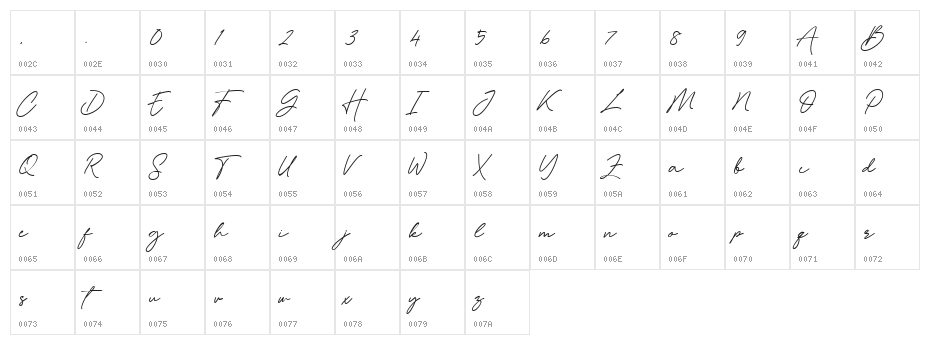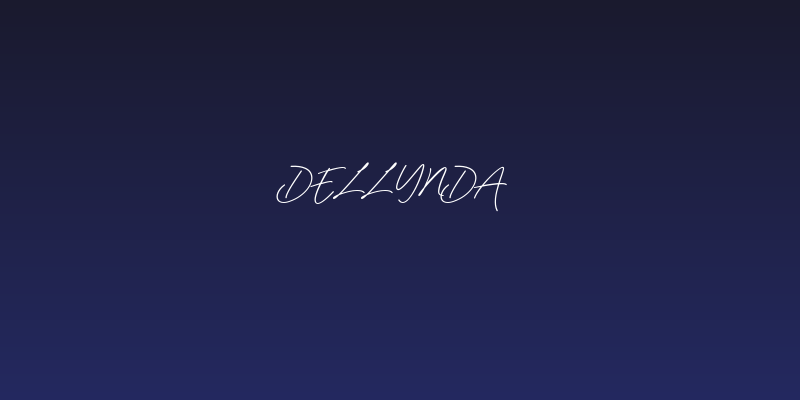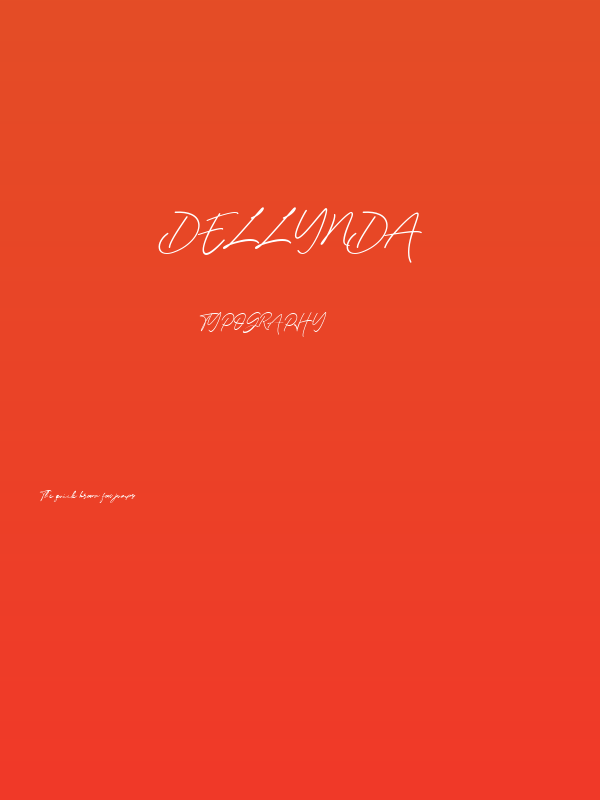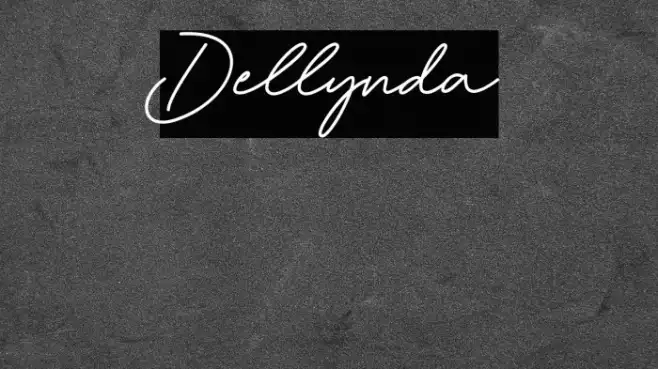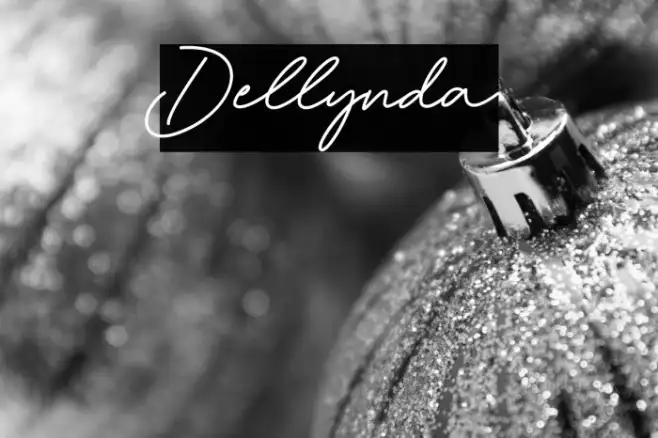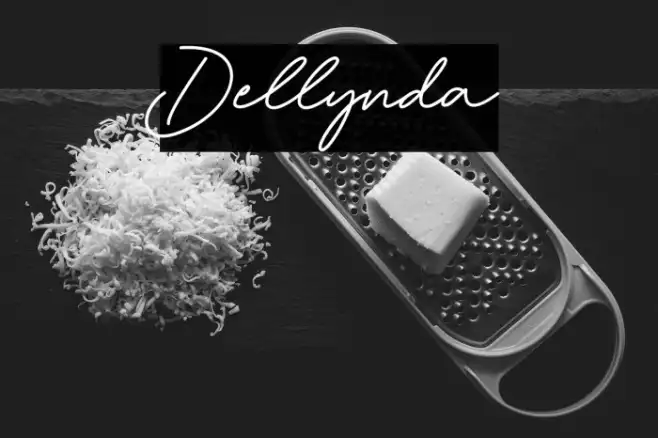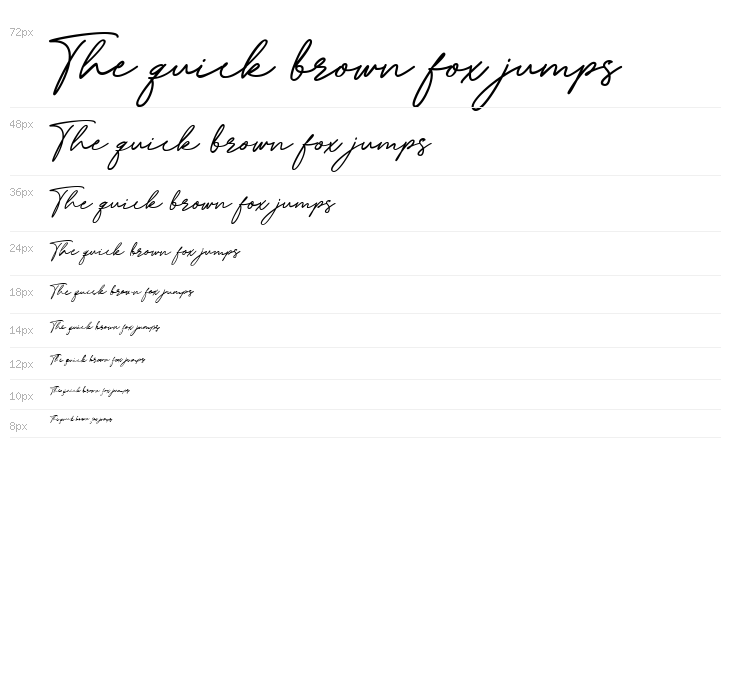
Dellynda Font
Dellynda Description
This elegant script font features fluid, cursive strokes that mimic natural handwriting. The uppercase letters are slightly more elaborate, with sweeping curves and loops, while the lowercase letters maintain a consistent flow, enhancing readability. The numerals are designed to match the style of the letters, offering a cohesive look. The font's overall appearance is sophisticated and stylish, making it suitable for a variety of design projects. Its delicate lines and graceful curves convey a sense of elegance and refinement, ideal for invitations, branding, and decorative purposes.
| Overall Style | Elegant, Decorative |
| Use Case | Invitations, Branding, Decorative text |
| Proposed Projects | Ideal for wedding invitations, branding, greeting cards, and decorative designs. |